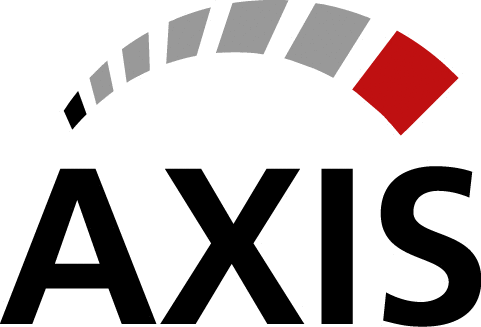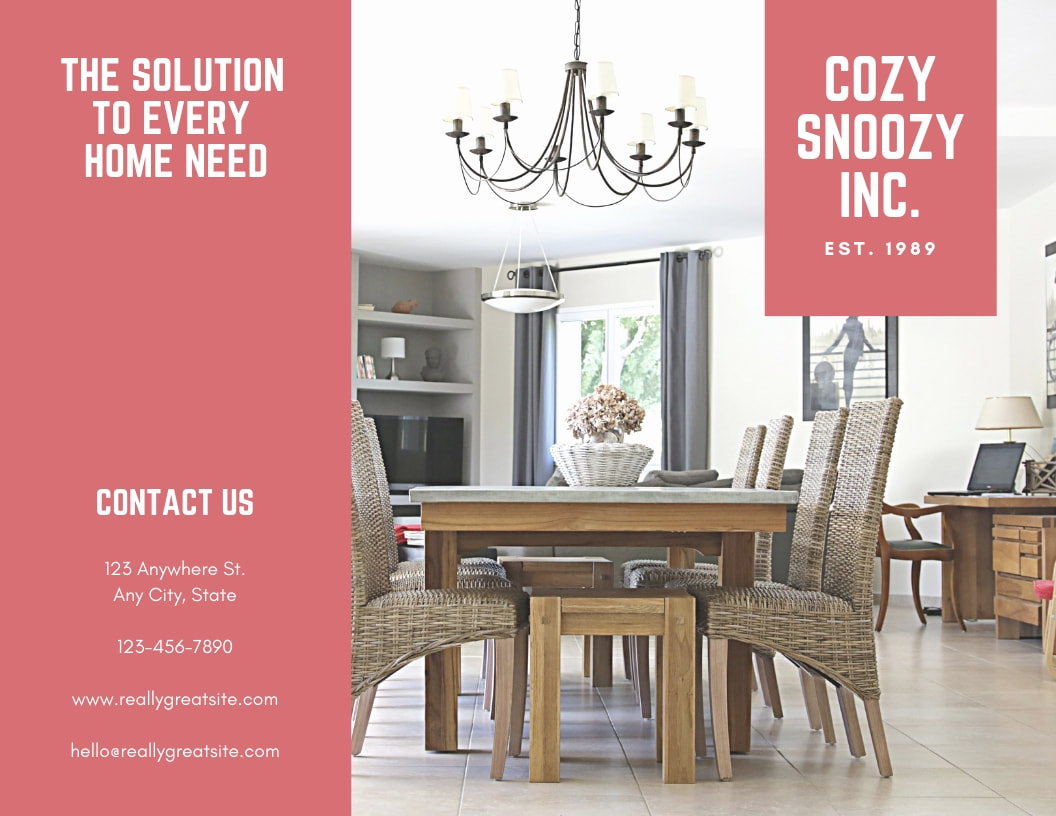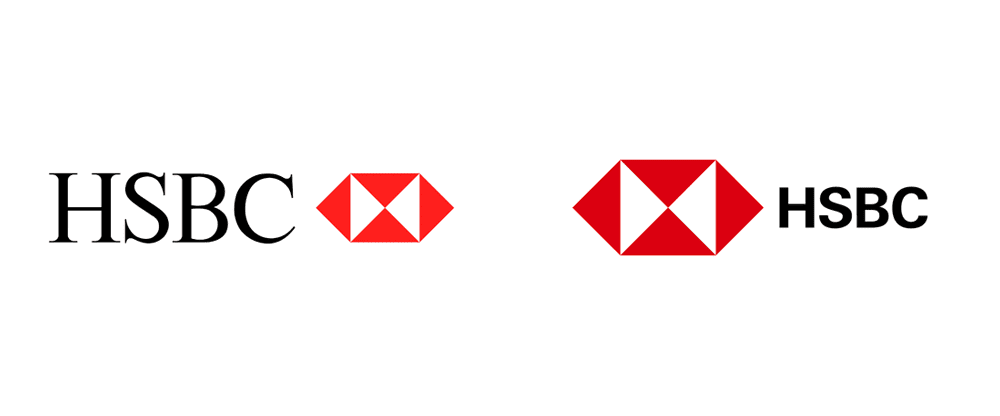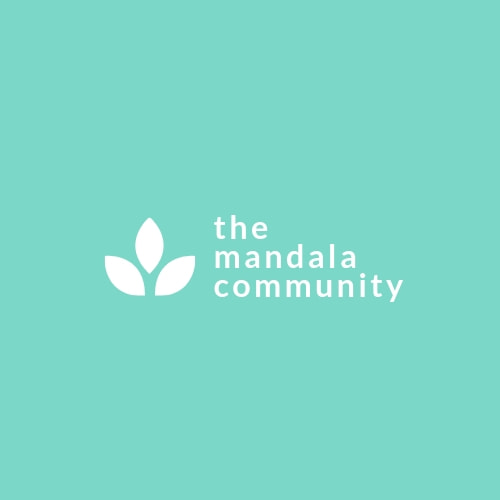
38+ Sans Serif Font Usage SVG. The difference between sans serif vs serif font? One major exception is web. And they are very well suited for text usage. Since most displays are not as high resolution as printed media, serifs can display poorly at small sizes. Legacy sans is as much venetian as any serif faces i have seen. First of all, let's have a look at the appearance of they came into being in the 18th century, yet their popularity and usage increase until the 19th many web designers prefer to use this font family over serif font. It is less likely to read a l as a i or vice versa. You can use these fonts to create custom styles. There is one reason to use serif and not sans serif: In the print of design, sans serif font. In the other hand, the 1 and the l look very similar on some serif fonts, but still better. There are many exceptions to this, but that is the most common usage. Browse by alphabetical listing, by style, by author or by popularity. Archive of freely downloadable fonts. There are advantages to using both serif & sans serif fonts in different designs.
8 Fresh Font Pairings That Will Make Your Audience Trust You Immediately Hoot Design Co Web Design Branding And Marketing In Columbia Mo. In the other hand, the 1 and the l look very similar on some serif fonts, but still better. You can use these fonts to create custom styles. Since most displays are not as high resolution as printed media, serifs can display poorly at small sizes. There is one reason to use serif and not sans serif: In the print of design, sans serif font. Legacy sans is as much venetian as any serif faces i have seen. Archive of freely downloadable fonts. The difference between sans serif vs serif font? There are many exceptions to this, but that is the most common usage. There are advantages to using both serif & sans serif fonts in different designs. Browse by alphabetical listing, by style, by author or by popularity. It is less likely to read a l as a i or vice versa. And they are very well suited for text usage. First of all, let's have a look at the appearance of they came into being in the 18th century, yet their popularity and usage increase until the 19th many web designers prefer to use this font family over serif font. One major exception is web.
They started being widely used during the 1920s bauhaus movement. There are many exceptions to this, but that is the most common usage. Helvetica is the most awesome so i want that first, then arial for. Since most displays are not as high resolution as printed media, serifs can display poorly at small sizes. You can use these fonts to create custom styles. It is less likely to read a l as a i or vice versa. One major exception is web. Legacy sans is as much venetian as any serif faces i have seen. There is one reason to use serif and not sans serif: In the print world, serif typefaces are almost universally based on font usage data on typewolf, as well as site submissions designers have been sending me lately, these are the. Keep reading for how to use the buttons to the left. Usage for projects involving lengthy text, such as books, newspapers, and most magazines, serif typefaces are the most commonly used typestyle. Archive of freely downloadable fonts. Browse by alphabetical listing, by style, by author or by popularity. The most common examples are arial and helvetica. Use them to add modern sophistication to. Serif fonts contain additional decorative elements like simple flourishes at the end of each letter. Change your settings, and choose what section you want the font to apply to. The difference between sans serif vs serif font? And they are very well suited for text usage. Download 10,000 fonts with one click for $19.95. William costinavel by hanzel space/hanief farandi. Have you ever written this? On the other hand, sans serif text typefaces can be used for annual reports and brochures. Browse and download sans serif fonts and generate images from custom text with sans serif fonts. They started being widely used during the 1920s bauhaus movement. Sans serif fonts are popular, and give your design a modern look. Download the best sans serif fonts from the web that are robust, gorgeously designed and perfect for any design project. In the other hand, the 1 and the l look very similar on some serif fonts, but still better. Now that you understand the difference between serif and sans serif fonts, let's talk about what message each category sends—and why it's important to make sure the fonts you choose send the right message. Licensed for personal and commercial use.
Download Branding Sf Font Family From Latinotype Ia Matveyeva. And they are very well suited for text usage. It is less likely to read a l as a i or vice versa. First of all, let's have a look at the appearance of they came into being in the 18th century, yet their popularity and usage increase until the 19th many web designers prefer to use this font family over serif font. Archive of freely downloadable fonts. You can use these fonts to create custom styles. Since most displays are not as high resolution as printed media, serifs can display poorly at small sizes. The difference between sans serif vs serif font? In the other hand, the 1 and the l look very similar on some serif fonts, but still better. In the print of design, sans serif font. Browse by alphabetical listing, by style, by author or by popularity. There is one reason to use serif and not sans serif: Legacy sans is as much venetian as any serif faces i have seen. One major exception is web. There are many exceptions to this, but that is the most common usage. There are advantages to using both serif & sans serif fonts in different designs.
Sans Serif Vs Serif Font Which Should You Use When Impact. One major exception is web. There is one reason to use serif and not sans serif: Legacy sans is as much venetian as any serif faces i have seen. In the other hand, the 1 and the l look very similar on some serif fonts, but still better. You can use these fonts to create custom styles. First of all, let's have a look at the appearance of they came into being in the 18th century, yet their popularity and usage increase until the 19th many web designers prefer to use this font family over serif font. The difference between sans serif vs serif font? Browse by alphabetical listing, by style, by author or by popularity. Archive of freely downloadable fonts. There are advantages to using both serif & sans serif fonts in different designs. There are many exceptions to this, but that is the most common usage. In the print of design, sans serif font. It is less likely to read a l as a i or vice versa. Since most displays are not as high resolution as printed media, serifs can display poorly at small sizes. And they are very well suited for text usage.
How Typography Determines Readability Serif Vs Sans Serif And How To Combine Fonts. There are advantages to using both serif & sans serif fonts in different designs. Archive of freely downloadable fonts. One major exception is web. In the other hand, the 1 and the l look very similar on some serif fonts, but still better. There is one reason to use serif and not sans serif: And they are very well suited for text usage. Browse by alphabetical listing, by style, by author or by popularity. There are many exceptions to this, but that is the most common usage. Since most displays are not as high resolution as printed media, serifs can display poorly at small sizes. The difference between sans serif vs serif font? It is less likely to read a l as a i or vice versa. Legacy sans is as much venetian as any serif faces i have seen. You can use these fonts to create custom styles. In the print of design, sans serif font. First of all, let's have a look at the appearance of they came into being in the 18th century, yet their popularity and usage increase until the 19th many web designers prefer to use this font family over serif font.
Font Psychology For Logo Design Complete Guide Feedough. In the print of design, sans serif font. One major exception is web. Browse by alphabetical listing, by style, by author or by popularity. And they are very well suited for text usage. There are advantages to using both serif & sans serif fonts in different designs. There is one reason to use serif and not sans serif: Legacy sans is as much venetian as any serif faces i have seen. You can use these fonts to create custom styles. There are many exceptions to this, but that is the most common usage. Since most displays are not as high resolution as printed media, serifs can display poorly at small sizes. It is less likely to read a l as a i or vice versa. Archive of freely downloadable fonts. First of all, let's have a look at the appearance of they came into being in the 18th century, yet their popularity and usage increase until the 19th many web designers prefer to use this font family over serif font. In the other hand, the 1 and the l look very similar on some serif fonts, but still better. The difference between sans serif vs serif font?
Serif Vs Sans Serif Fonts. Browse by alphabetical listing, by style, by author or by popularity. And they are very well suited for text usage. One major exception is web. There are advantages to using both serif & sans serif fonts in different designs. It is less likely to read a l as a i or vice versa. Archive of freely downloadable fonts. There is one reason to use serif and not sans serif: There are many exceptions to this, but that is the most common usage. In the other hand, the 1 and the l look very similar on some serif fonts, but still better. In the print of design, sans serif font. First of all, let's have a look at the appearance of they came into being in the 18th century, yet their popularity and usage increase until the 19th many web designers prefer to use this font family over serif font. You can use these fonts to create custom styles. Legacy sans is as much venetian as any serif faces i have seen. The difference between sans serif vs serif font? Since most displays are not as high resolution as printed media, serifs can display poorly at small sizes.
Sans serifs can also work well for magazines and other.
Sans Serif Vs Serif Font Which Should You Use When Impact. Legacy sans is as much venetian as any serif faces i have seen. First of all, let's have a look at the appearance of they came into being in the 18th century, yet their popularity and usage increase until the 19th many web designers prefer to use this font family over serif font. Browse by alphabetical listing, by style, by author or by popularity. You can use these fonts to create custom styles. There is one reason to use serif and not sans serif: There are many exceptions to this, but that is the most common usage. There are advantages to using both serif & sans serif fonts in different designs. The difference between sans serif vs serif font? One major exception is web. It is less likely to read a l as a i or vice versa. Since most displays are not as high resolution as printed media, serifs can display poorly at small sizes. In the other hand, the 1 and the l look very similar on some serif fonts, but still better. Archive of freely downloadable fonts. In the print of design, sans serif font. And they are very well suited for text usage.
Even if that means we send you elsewhere to get them. One major exception is web. Microsoft sans serif font is a very legible user interface (ui) font. It is less likely to read a l as a i or vice versa. Helvetica is the most awesome so i want that first, then arial for. Licensed for personal and commercial use. In the other hand, the 1 and the l look very similar on some serif fonts, but still better. Legacy sans is as much venetian as any serif faces i have seen. In the print of design, sans serif font. Archive of freely downloadable fonts.